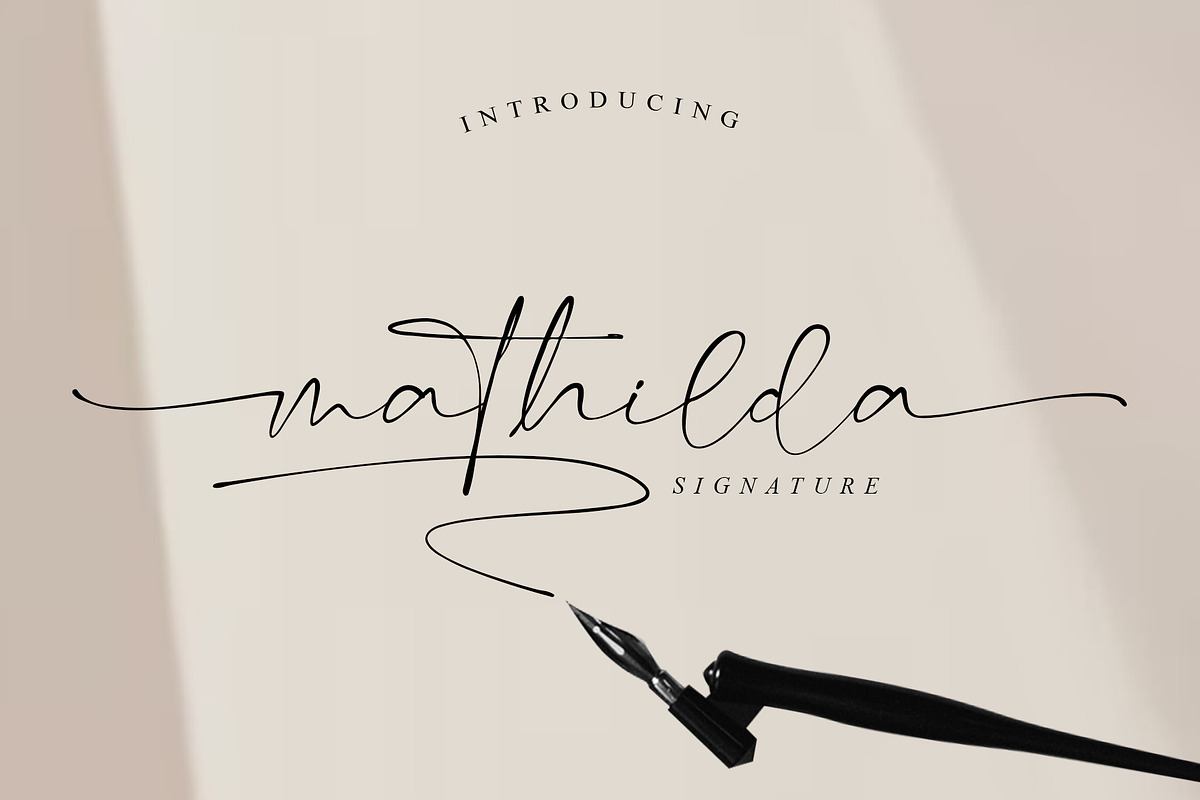
Mathilda Signature Font Free Download is a graceful and modern script typeface that mimics the fluidity of natural handwriting. With its delicate strokes, elegant swashes, and handcrafted charm, Mathilda is perfect for personal branding, logos, invitations, social media posts, and high-end packaging. It brings a sense of authenticity and sophistication to any design.
Designed to look like a real signature, Mathilda Signature Font Free Download includes ligatures and alternates that enhance its realistic and stylish flow. It’s an ideal choice for projects that require a personal, feminine, or artistic touch, while still maintaining a professional appearance.